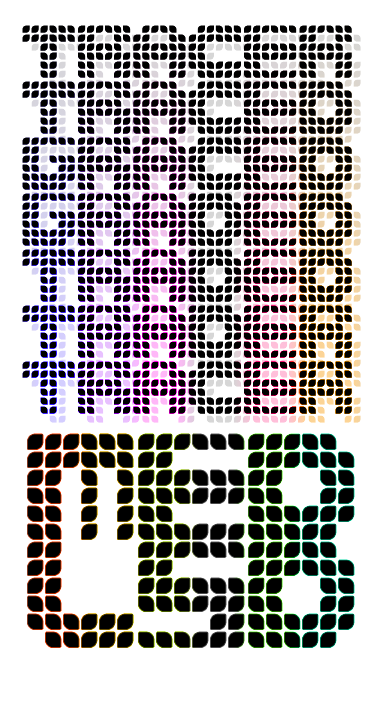
Trip-tastic! The relative scale of the modules to the forms works really well…demanding just enough scrutiny to identify each letter AND make your eyes go swimming.
Great to see the full font, it's as alive as I imagined it to be. I'll have to try a clone sometime. 10/10+fav
@fugitiveglue: 8) Back in the early days of fontstruct, we shared a lot of work simply in the spirit of expanding the experimental horizons of the software and what we knew of modular design.
We were rapt in this tangible excitement to map out all these possibilities as fast as we could dream them up... and fontstruct them.
I made a whole diverse series of clones from Med Led exploring various modules, filter settings, and optical special effects. It’s a wonderful template to try out the “meek FM”-like abilities of the fontstructor utilizing brick substitutions and filters.
But this one definitely is by far my favorite of the bunch (though I had one called Med Yeti which was also kinda dope).
An excellent example is my denouement from this period: the brickstacking exploit. Though there was exactly the right amount of luck involved, discovering, cracking, refining, and releasing the brickstacking exploit was a totally intentional process. Brickstacking of course potentiates a lot of work on fontstruct (including your own). It is such a widely used and useful approach that it went on to receive official support and integration into the software.
Those early days were such a great time, after all, to be pushing the envelope of known fontstruct possibilities. The fontstructor was much less fully-featured than it is today, but this only encouraged our enthusiasm to think outside of the box. We didn’t even have the 22.5° wedge bricks for the majority of that time. And we couldn’t comment on each other’s work for a portion of it! So this awesome community dialog took place based entirely on how one trail-blazing fontstruction would inspire and inform the next...